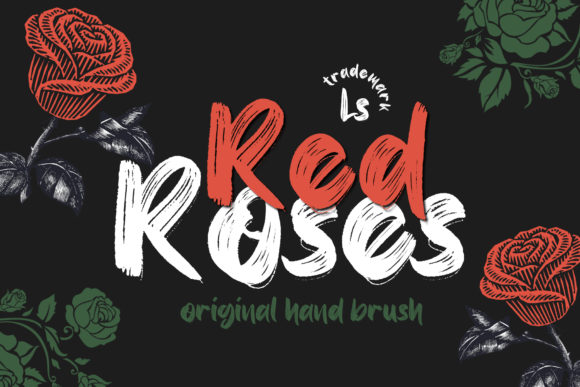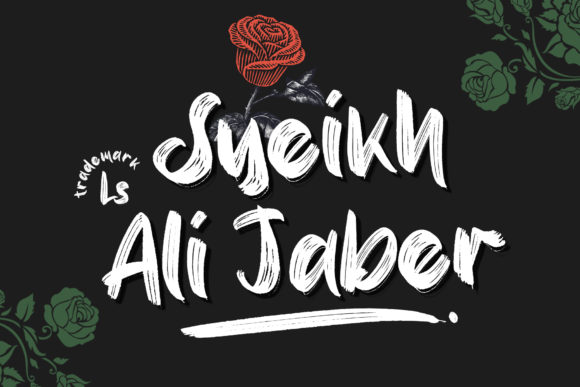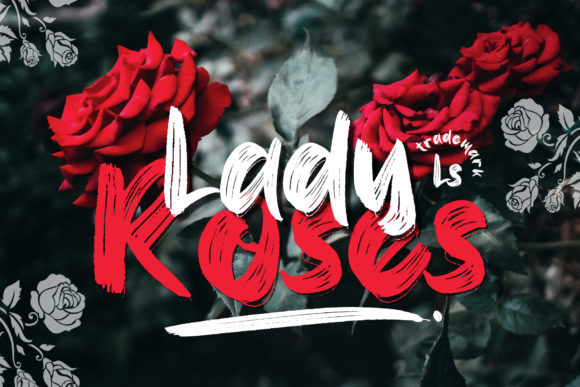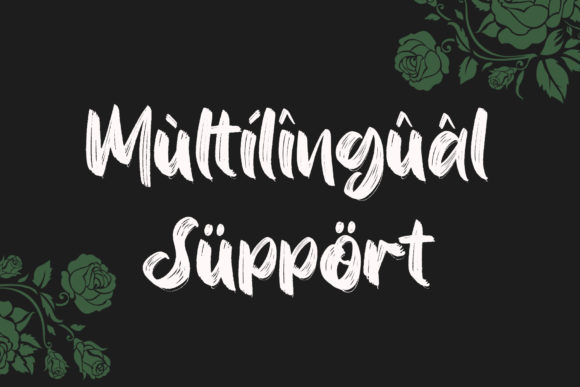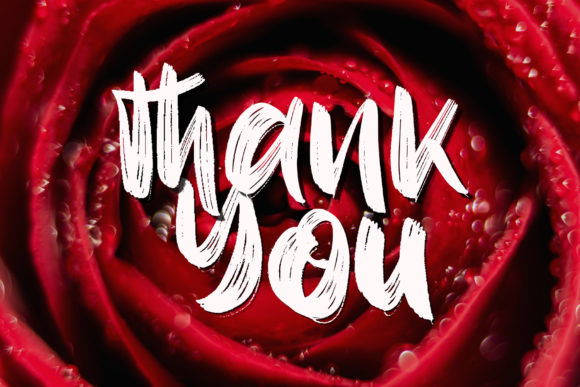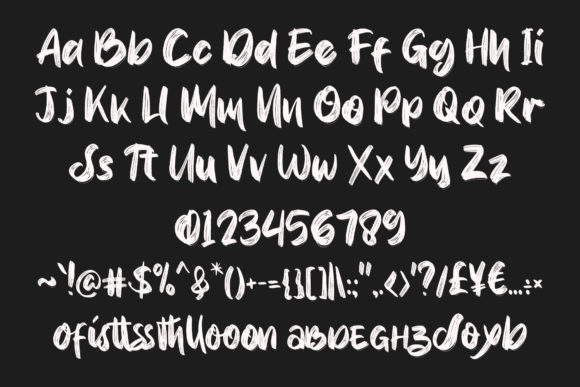
Sonoxa Font
About Sonoxa Font
Sonoxa is a daring and thick lettered handwritten font that brings a unique and bold character to your designs. With its distinctive style and strong presence, it is a valuable asset for any font library, capable of elevating various types of creative projects.
The thick lettering of Sonoxa adds a sense of weight and impact to your designs. It commands attention and makes a statement, ensuring that your message is seen and heard. Whether you’re designing posters, logos, headlines, or any other visual materials, this font will enhance the visual impact of your composition.
The handwritten nature of Sonoxa gives it a personal and authentic touch. It captures the organic and imperfect qualities of handwriting, adding warmth and personality to your designs. This font is particularly effective when you want to convey a sense of boldness, confidence, or playfulness.
Sonoxa is versatile and can be applied to a wide range of topics and design themes. It is well-suited for creative projects that require a bold and expressive typography, such as branding, packaging, apparel design, social media graphics, and more. Its thick lettering stands out on both digital and print mediums, ensuring legibility and visual impact.
The unique character of Sonoxa also allows for creative experimentation. You can play with various color combinations, effects, and textures to further enhance its visual appeal. Whether you prefer a clean and minimalist look or a more vibrant and textured style, this font adapts to your creative vision.
In summary, Sonoxa is a daring and thick lettered handwritten font that adds a unique and bold character to your designs. With its strong presence and personal touch, it has the potential to elevate any creation. Versatile and impactful, Sonoxa is an asset to your font library, offering a wide range of creative possibilities for your projects.